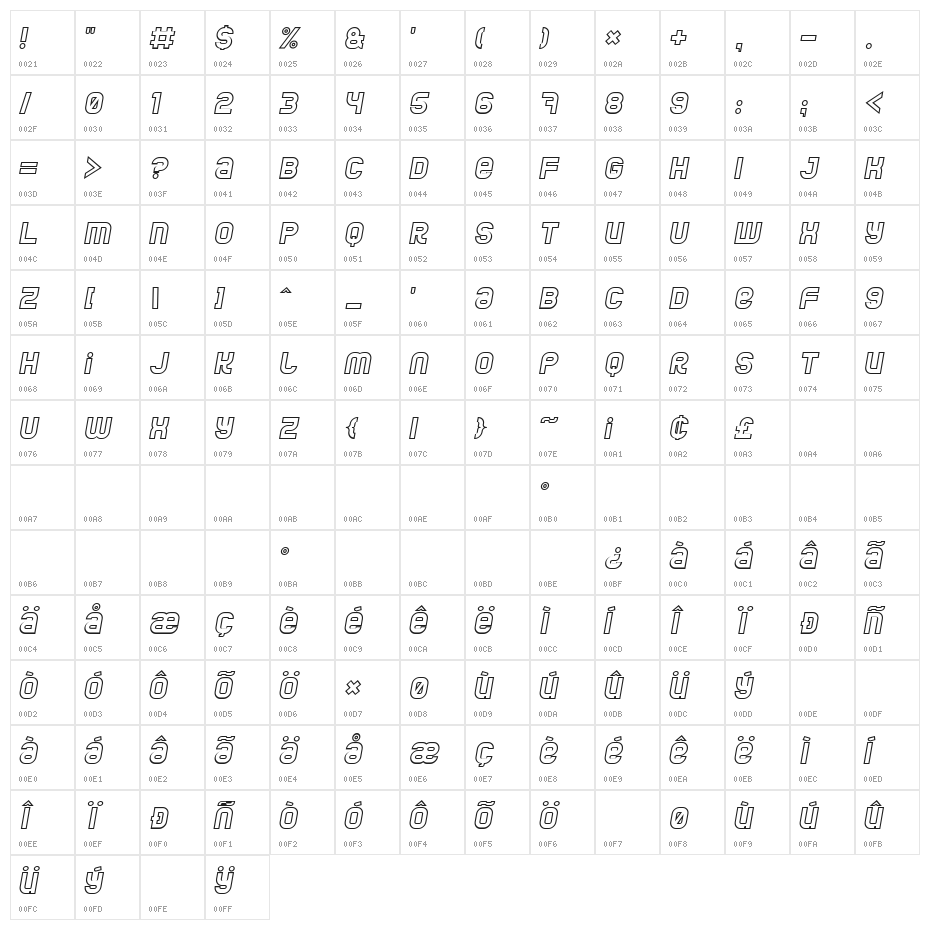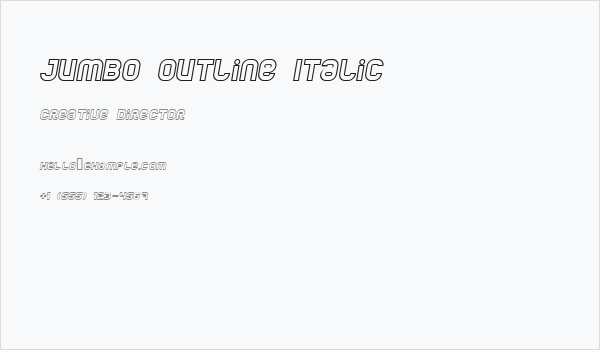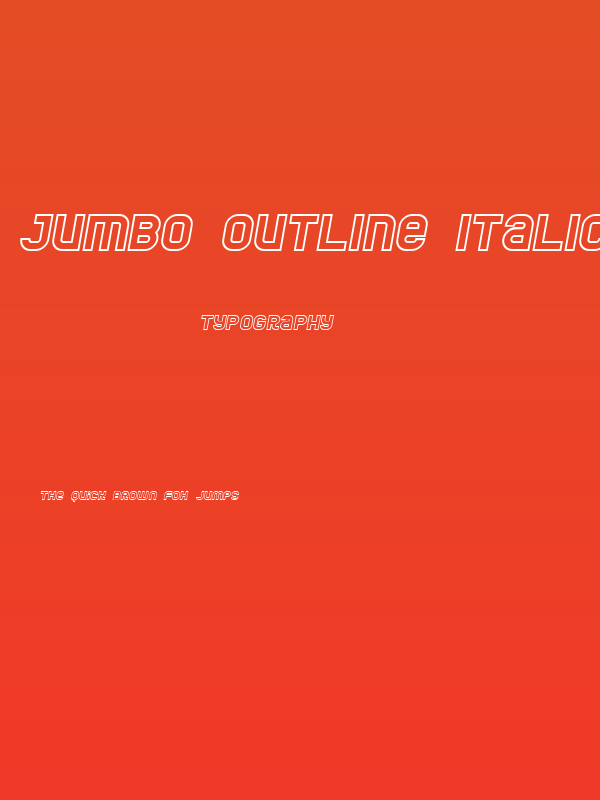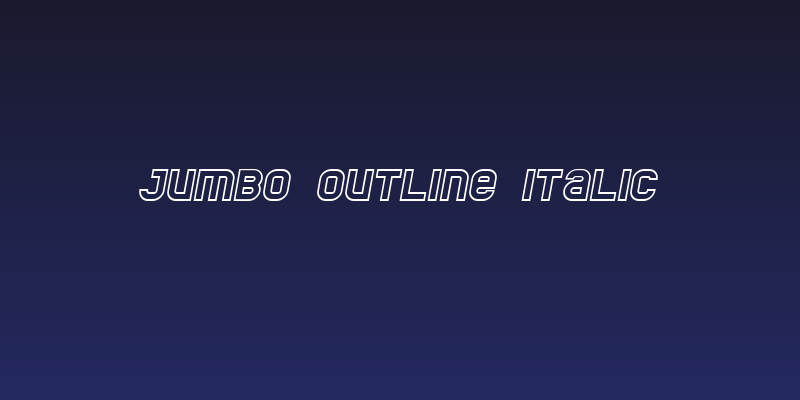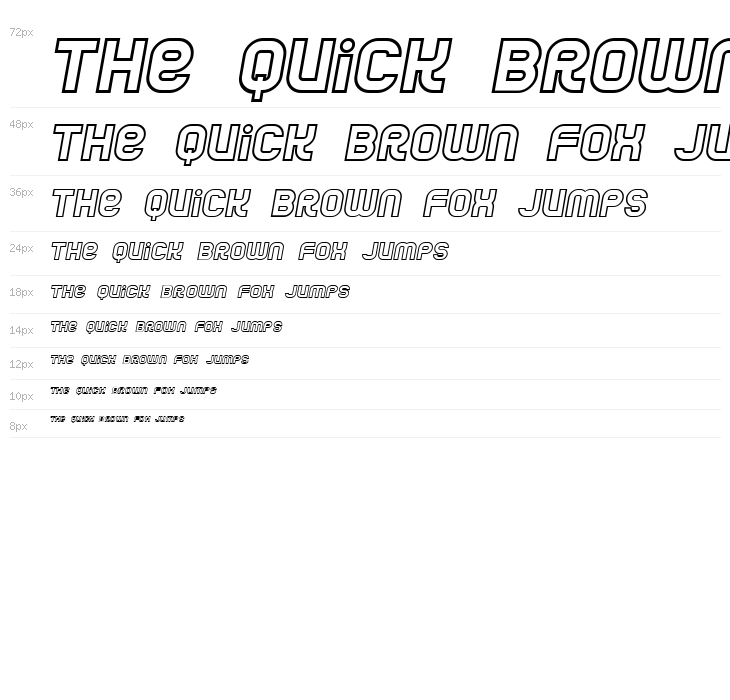
Jumbo Outline Italic Font
Jumbo Outline Italic Description
This font features a bold, outlined style with a distinct italic slant, giving it a dynamic and modern appearance. The characters are uppercase and lowercase alphabets, numerals, and a variety of special symbols. Each letter is crafted with a consistent outline thickness, creating a uniform look across the typeface. The design is clean and geometric, with rounded edges that soften the overall appearance. The italic angle adds a sense of motion and energy, making it suitable for eye-catching designs. The open spaces within the outlines provide a unique aesthetic that stands out in both digital and print media.
| Proposed Projects | Ideal for headlines, posters, branding, and any design requiring a bold statement. |